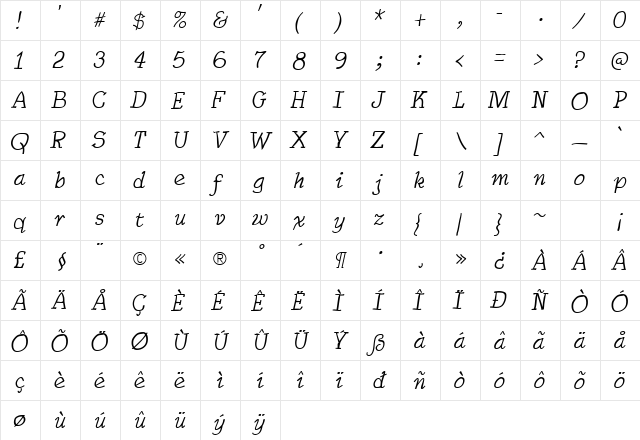
SarahfSlob Italic
Design Context for SarahfSlob Typeface
SarahfSlob is a composed and adaptable typeface that performs quietly and consistently across a wide range of design contexts. The slanted form adds forward momentum and visual energy.
Pro Tip: Try SarahfSlob for annotation and caption copy alongside an upright companion — the contrast in angle creates a dynamic but ordered typographic system.